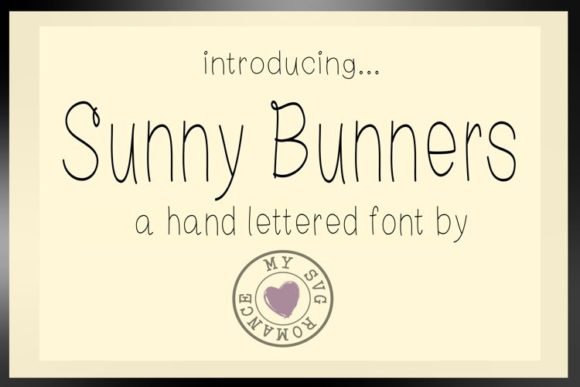
Sunny Bunners Font
Journey into the World of Sunny Bunners: A Script Font Adventure
Adorn your creative projects with the irresistible charm of Sunny Bunners, a captivating handwritten font brimming with warmth and personality. Its playful characters dance across the page, evoking a sense of whimsy and wonder, perfect for capturing the essence of heartfelt messages and imaginative narratives.
Step into a realm where words come alive, where each letter carries a story within its curves and swirls. Sunny Bunners is not just a font; it's an invitation to embark on an artistic odyssey, to transform ordinary text into extraordinary expressions of your creativity.
With Sunny Bunners, you'll discover endless possibilities for your design endeavors. Its inherent charm shines through in storybook covers, branding materials, business cards, and personal branding, adding a touch of authenticity and uniqueness to every project.
Whether you're a seasoned designer or just starting your creative journey, Sunny Bunners is your perfect companion. Its user-friendly nature makes it a breeze to work with, allowing you to effortlessly infuse your work with a touch of magic.
So, embrace the magic of Sunny Bunners and unlock a world of creative possibilities. Let your imagination soar and watch as your words take on a life of their own, captivating and enchanting your audience.